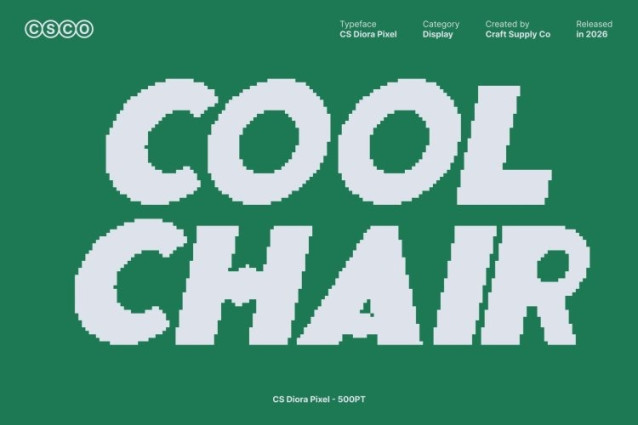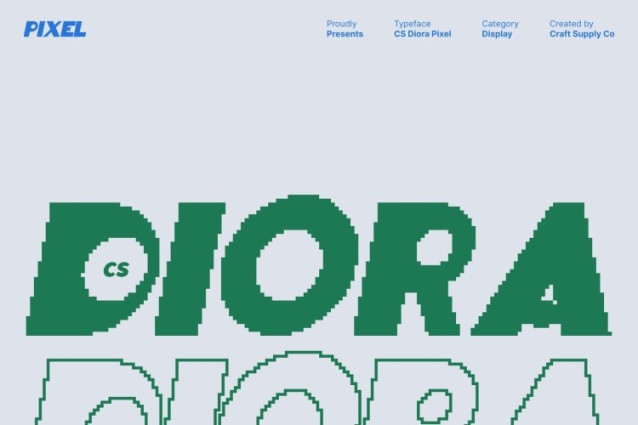
CS Diora Pixel Font
CS Diora Pixel Font This is a bold display font built on strong geometric forms, translated into a crisp pixel style. Its confident letter constructions create instant visual impact, while the pixel structure adds a retro-digital charm that feels both modern and nostalgic. The result is a striking typeface that looks powerful, structured, and visually exciting.
Fresh, Cheerful Personality with Digital Flair
This stands out with its upbeat and friendly character. The playful geometry softens its bold weight, creating a cheerful tone without losing a cool, contemporary edge. The pixel aesthetic enhances this personality, making the font feel lively, fun, and perfectly suited for digital culture.
Perfect for Eye-Catching Titles and Branding
Designed for titles, headlines, posters, and branding, this font delivers maximum impact at large sizes. Its bold pixel forms remain clear and readable while adding originality and charm. Ideal for logos, campaigns, and social media visuals, it ensures your message feels bold, memorable, and on-trend.
Modern, Playful, and Versatile in Pixel Style
Combining modern geometry with joyful expression, this font works beautifully across digital screens and retro-inspired designs. From contemporary branding to old-technology aesthetics, this font brings fresh energy, playful character, and strong visual presence to every creative project.